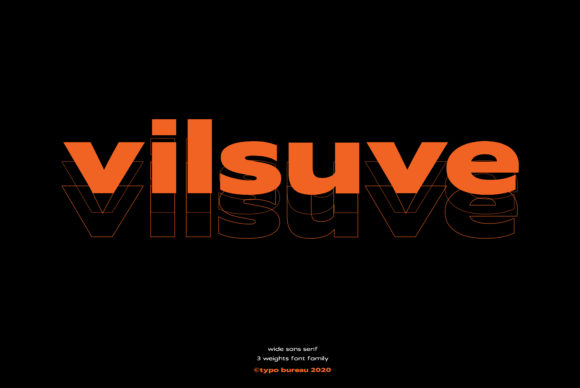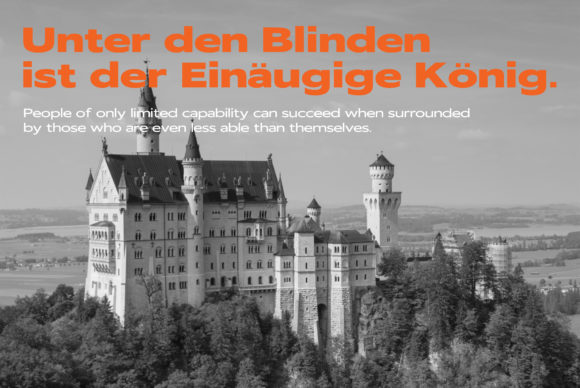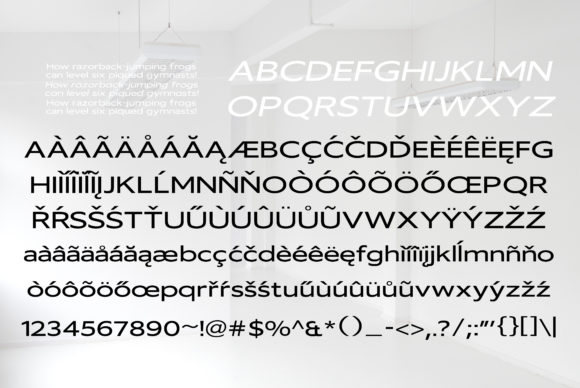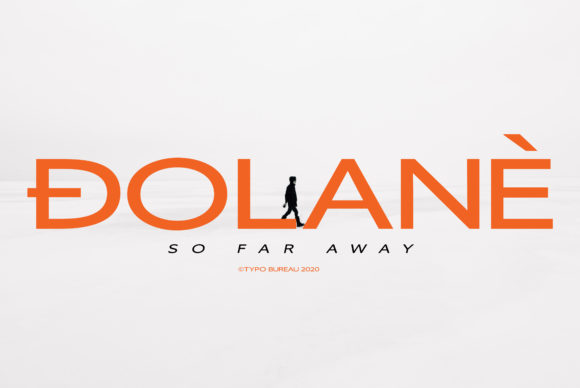
About Vilsuve Font
Vilsuve is a sans serif font that will give a real modern feel to any project.Masterfully designed to become a true favorite, this font has the potential to bring each of your creative ideas to the highest level!